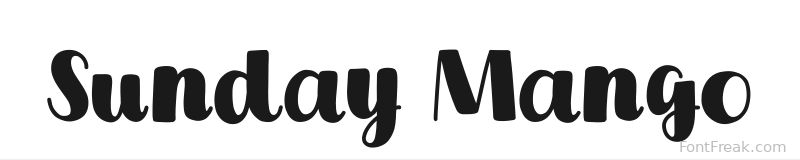
Sunday Mango
About Sunday Mango
Sunday Mango, designed by Syaf Rizal, is a charming display font that beautifully blends playful elegance with modern flair. As a script font, it features soft, flowing strokes that create a sense of warmth and friendliness. The font showcases a medium stroke weight with subtle contrast, enhancing its legibility while maintaining a casual feel. The spacing is well-balanced, allowing for seamless integration into various design projects. Decorative elements, such as whimsical curls and flourishes, add an artistic touch, making it a standout choice for creative applications.
This font is particularly well-suited for a variety of use cases. Its inviting style makes it ideal for wedding invitations, where it can convey romance and celebration. Additionally, Sunday Mango is perfect for restaurant menus, lending a touch of sophistication and personality to dining experiences. Small business owners can utilize this font in branding materials, such as logos and promotional flyers, to capture attention and express their brand's unique identity. Content creators looking to enhance their social media graphics or blogs will find this font an engaging choice that resonates with audiences.
What sets Sunday Mango apart is its perfect balance of playfulness and elegance, making it suitable for both formal and informal contexts. The font’s unique character adds a personal touch to any design, ensuring that it captures and holds the viewer's attention. Whether used in print or digital formats, Sunday Mango is a delightful addition to any typographic toolkit.